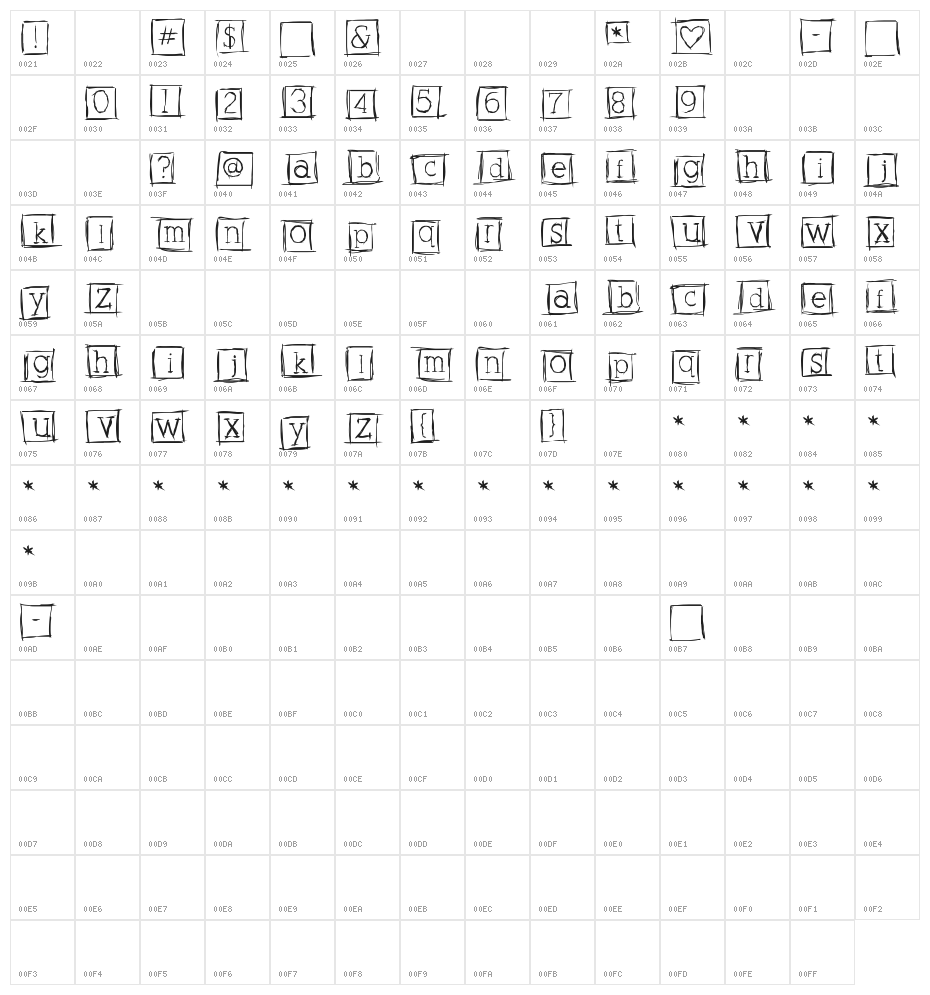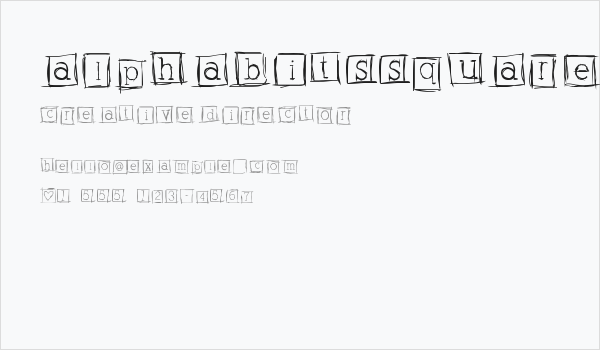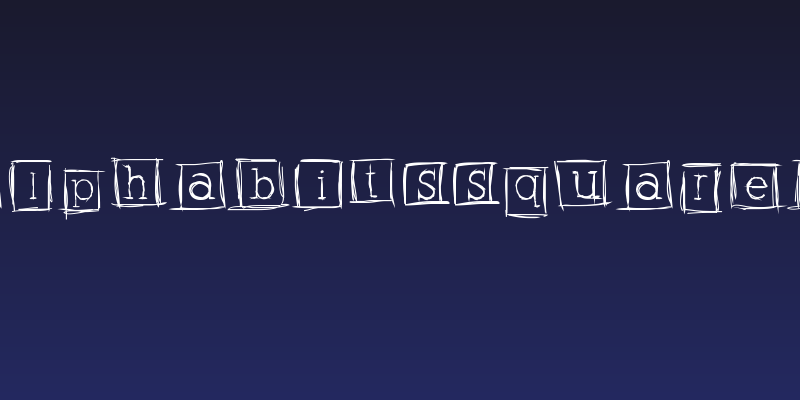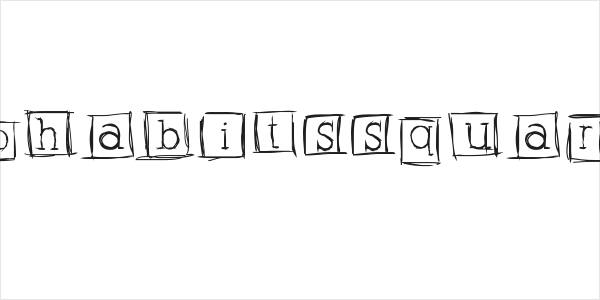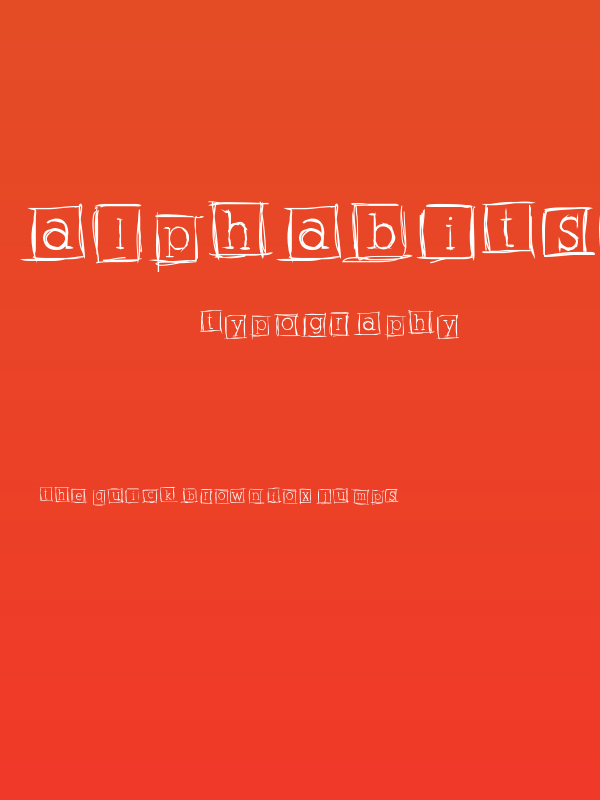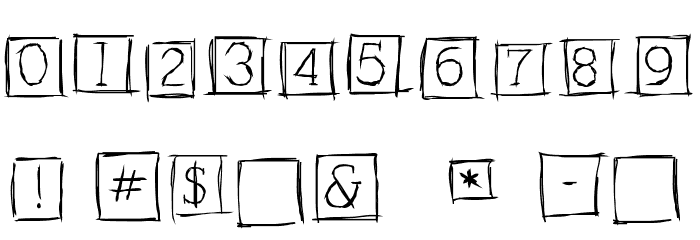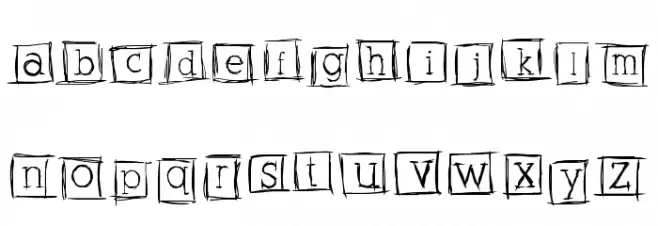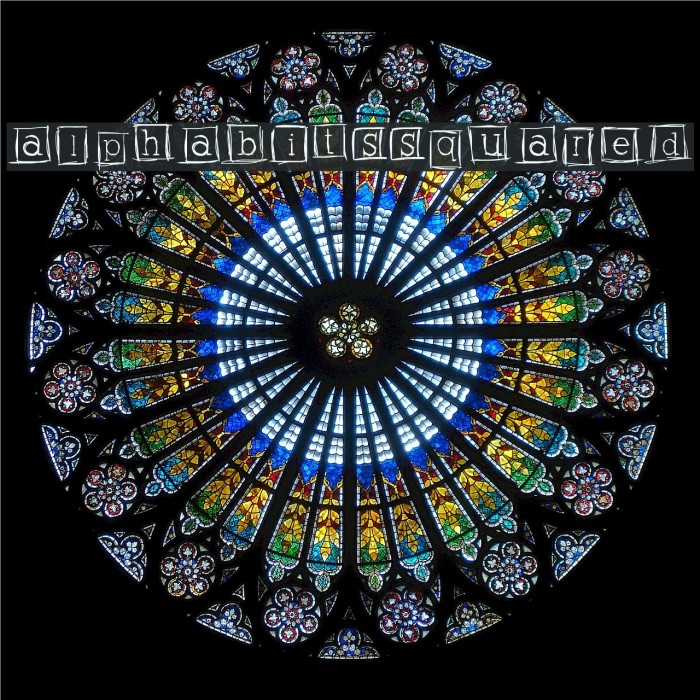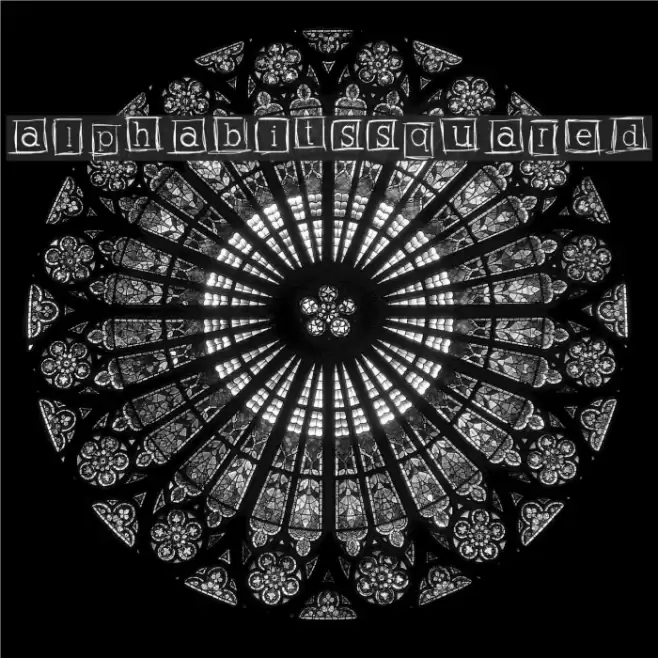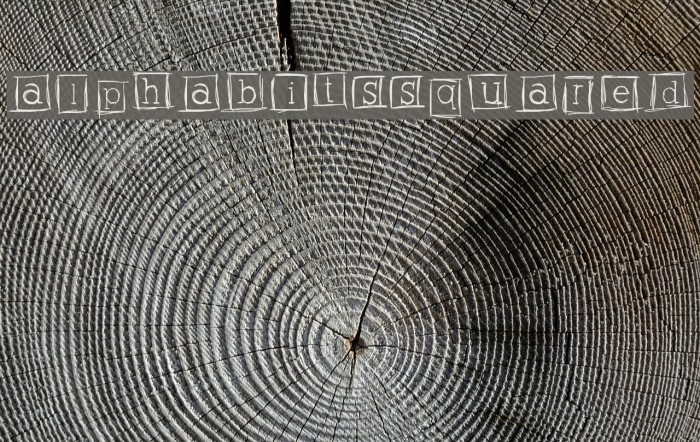
AlphabitsSquared Font
AlphabitsSquared Description
This font features a playful and quirky design, with each character enclosed in a roughly sketched square, giving it a hand-drawn, doodle-like appearance. The letters are slightly irregular, adding to the whimsical and informal style. The uppercase and lowercase letters maintain a consistent size within their boxes, creating a uniform yet dynamic look. The numbers and special characters follow the same boxed style, ensuring cohesion across all elements. This font exudes a casual and creative vibe, perfect for projects that require a touch of fun and individuality.
| Overall Style | Whimsical and informal |
| Use Case | Headlines, Posters, Creative projects |
| Proposed Projects | Ideal for children's books, creative posters, casual invitations, and playful branding. |